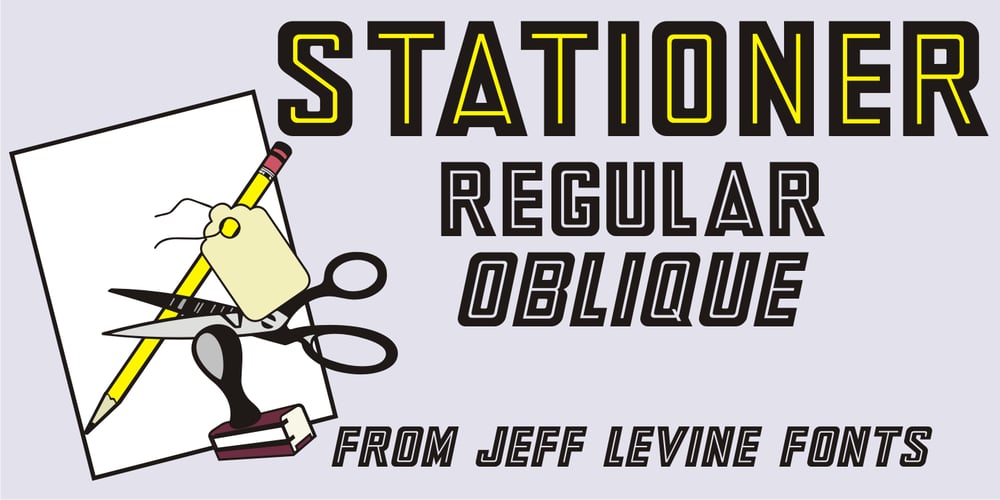
Stationer JNL
Stationer JNL font
Stationer JNL Font Family was designed by Jeff Levine and published by Jeff Levine. Stationer JNL contains 2 styles and family package options. The 1938 sheet music for the official Coast Guard Marching Song “Semper Paratus” “(Always Ready)” offered up a hand lettered title in a bold block style with rounded corners and an inline. This is now available as Stationer JNL, in both regular and oblique versions.